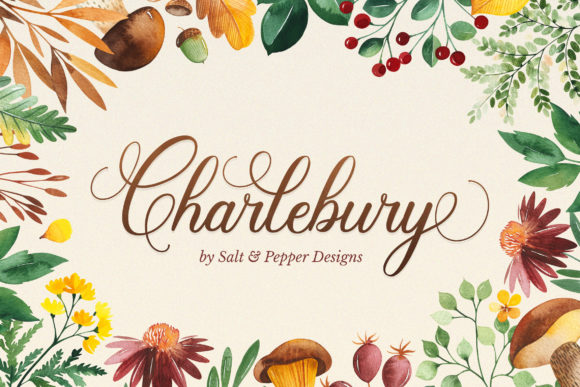
Charlbury Script: A Modern Script Font for Elegant Projects
Finding a script font that balances elegance with contemporary style can be a real challenge. Too many feel outdated or overly formal, while others sacrifice legibility for flair. Charlbury Script enters this space with a distinct personality, offering a refined yet approachable script that feels both timeless and fresh. It’s not just another decorative typeface; it’s a tool designed for real-world application, crafted to bring a touch of sophistication without losing practicality. For anyone working on a project that calls for a human touch with a polished edge, this font deserves a closer look.
Anatomy of a Balanced Typeface
What makes Charlbury Script visually distinct is its careful balance. It avoids the extremes of being too thin, which can appear fragile and hard to read at small sizes, and too thick, which can feel heavy and overwhelming. The strokes have a natural, varied weight that mimics the flow of a skilled pen, giving it an organic, handwritten feel. This isn't a rigid, mechanical script; it has personality. The letterforms are impeccably formed, with consistent spacing and thoughtful connections that make flowing words and sentences. The overall impression is one of effortless elegance—a premium font that feels crafted, not just generated.
The contemporary atmosphere comes from its subtle details. You’ll find modern curves and a clean baseline that keep it from feeling stuffy or traditional. It’s a script font that can stand confidently in a modern branding kit next to a clean sans serif font or a sturdy serif font. This versatility is key. It doesn’t scream for attention with excessive swashes but offers them as optional enhancements, allowing you to dial the formality up or down based on the project’s needs.
Where Charlbury Script Truly Shines
Understanding where a font excels is just as important as appreciating its design. Charlbury Script is a versatile creative font, but its strengths lend themselves particularly well to certain applications. It’s a fantastic choice for projects where you want to inject warmth, personality, and a premium feel.
- Brand Identity and Logo Design: For boutique businesses, lifestyle brands, cafes, wedding services, or artisanal products, this script font can become the cornerstone of a memorable logo. It conveys approachability and quality. Pair it with a simple sans serif for body text to create a balanced and professional brand identity.
- Packaging Design: On product labels, boxes, or shopping bags, Charlbury Script adds a handcrafted, luxurious touch. It’s perfect for highlighting a product name or a special ingredient, making the item feel more curated and valuable.
- Editorial and Publishing: Use it for chapter headings, pull quotes, or author names in books, magazines, or digital publications. It breaks up the monotony of long-form text and guides the reader’s eye, enhancing visual hierarchy and engagement.
- Marketing and Social Media Graphics: In a crowded social feed, a beautiful script headline can stop the scroll. It’s excellent for Instagram graphics, Facebook ads, Pinterest pins, and email newsletter headers. Its PUA encoding means you can easily access all the glyphs and swashes to create unique, eye-catching text treatments directly in your design software.
- Web Design and Digital Media: When used thoughtfully for large headlines or key phrases, it can elevate a website’s aesthetic. It adds personality to landing pages, blog headers, and hero sections. Just ensure it’s paired with a highly readable sans serif font for paragraph text to maintain accessibility.
- Personal and Craft Projects: For wedding invitations, greeting cards, inspirational quotes, or craft projects, this font is a joy to use. Its elegant form makes any personal project look polished and professional.
The Practical Impact on Your Projects
Choosing a typeface isn’t just an aesthetic decision; it’s a strategic one that influences how your audience perceives and interacts with your content. Using Charlbury Script effectively can have a tangible impact on several key areas.
Readability and Visual Hierarchy: A common pitfall with script fonts is overuse. Charlbury Script, when used for headlines, subheadings, or short bursts of text, creates a clear and attractive visual hierarchy. It draws the eye to the most important information first. However, setting a full paragraph in any script font, no matter how well-designed, will harm readability. Use it as an accent, not the workhorse. Test it at the size you intend to use it to ensure the connections between letters remain clear and the text flows smoothly.
Brand Perception and Professionalism: Fonts carry subconscious meaning. The balanced, contemporary elegance of Charlbury Script suggests a brand that is thoughtful, creative, and detail-oriented. It avoids the casualness of some handwritten font styles and the stuffiness of very formal scripts. This makes it a strong choice for small businesses and entrepreneurs who want to project an image of quality and care without appearing inaccessible. Consistency in using such a distinctive font across your materials—from your logo to your website to your social media—builds recognition and reinforces your brand identity.
Audience Engagement: Beautiful typography is a form of visual communication. A well-chosen font like Charlbury Script can make your content more inviting and enjoyable to consume. It adds an emotional layer that plain text cannot, helping to create a connection with your audience. Whether it’s the charm on a product label or the elegance on a wedding invite, the right font makes people feel something, which is the first step to engagement.
In the vast landscape of modern typography, Charlbury Script stands out as a thoughtfully designed workhorse. It offers the beauty and personality of a script with the reliability and balance needed for serious design work. By understanding its strengths and applying it with intention, you can leverage this font to create projects that are not only visually stunning but also strategically effective, leaving a lasting impression on your audience.